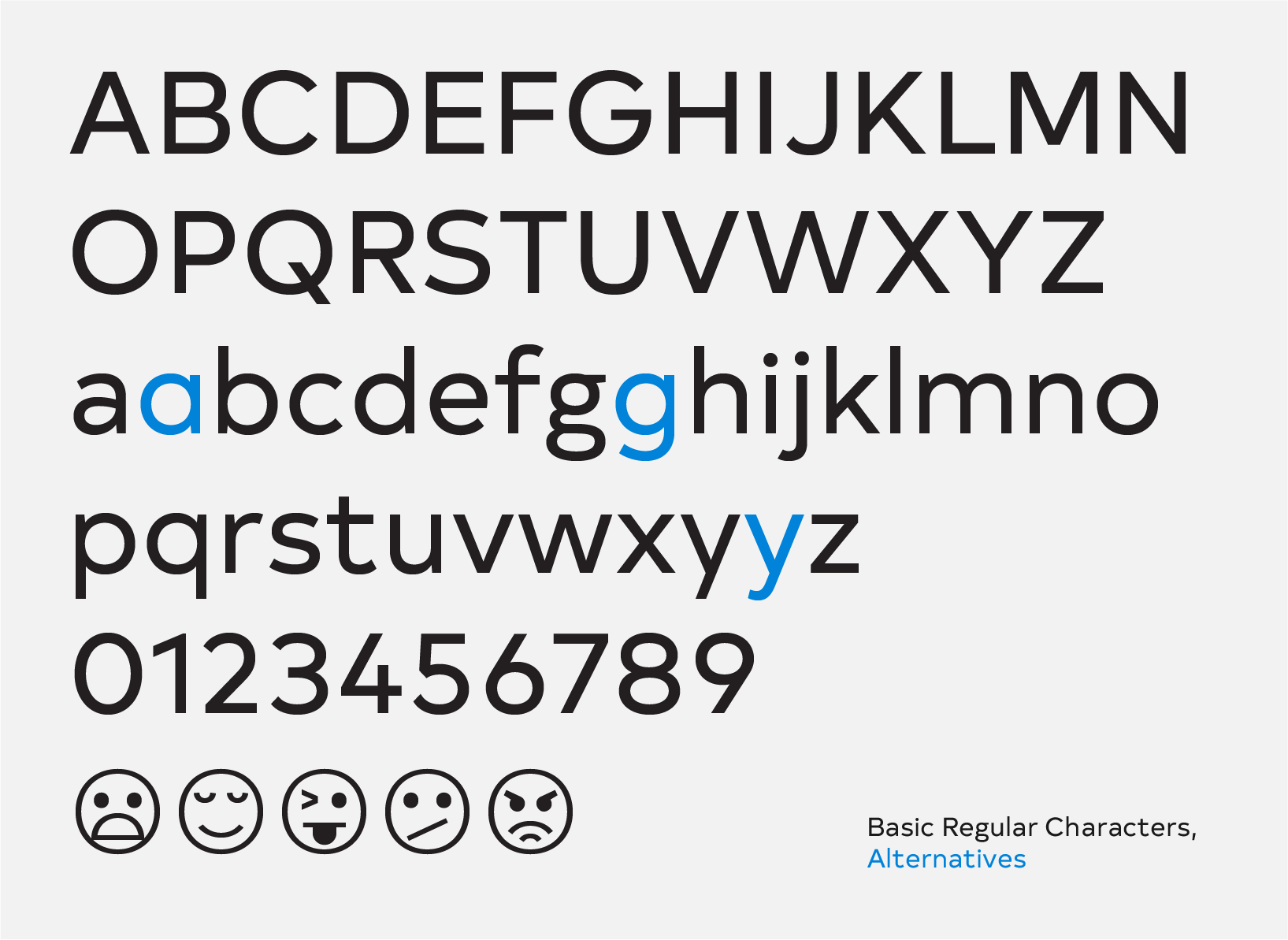
Corbert is a geometric sans-serif typeface influenced by the principles of Bauhaus and the early modernist era. Crafted with precision, its design features optically adjusted shapes, creating a clear and natural appearance that enhances legibility. The typeface embodies simplicity and functionality, reflecting the minimalist approach of the Bauhaus movement. Its regular and self-evident design makes it versatile across a broad spectrum of applications.
Originally gaining popularity in 2013, Corbert has since undergone updates in 2020 to meet user feedback and advancements in technology, ensuring it remains a contemporary and adaptable choice for designers seeking a modern sans-serif typeface.
Details include nine weights with matching italics and over 540 characters per style. OpenType features consist of five variations of numerals, including inferiors, superiors, fractions, alternative lowercase a, e and g, and language support covering Western, Southern, and Central Europe.